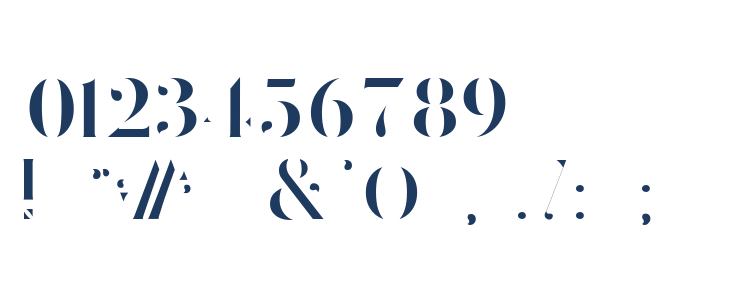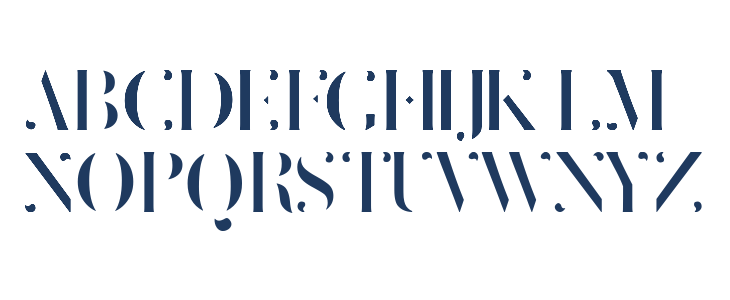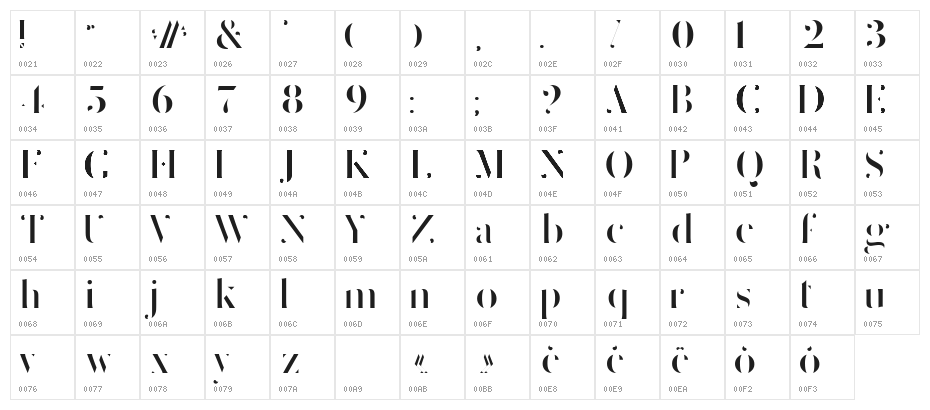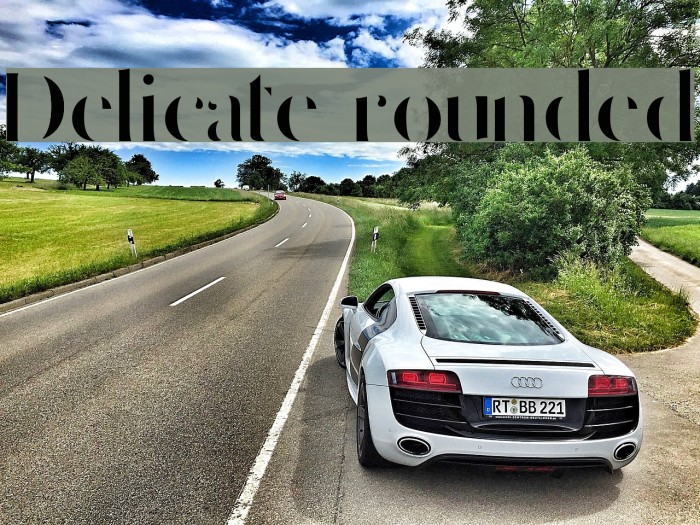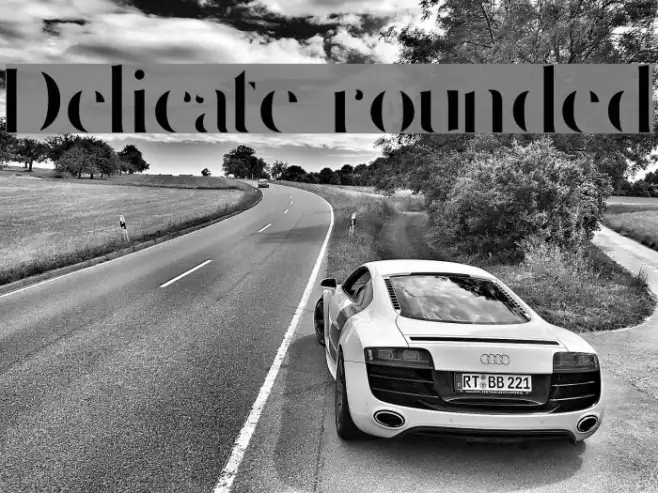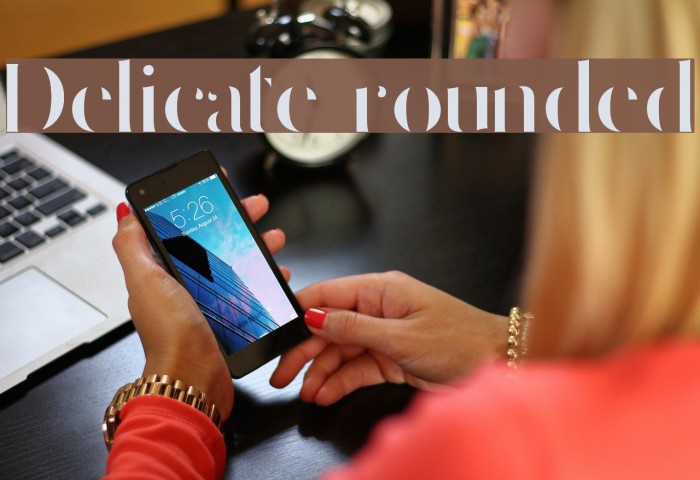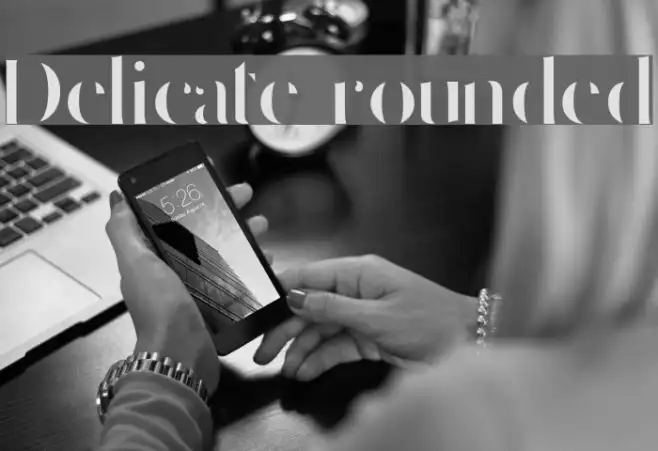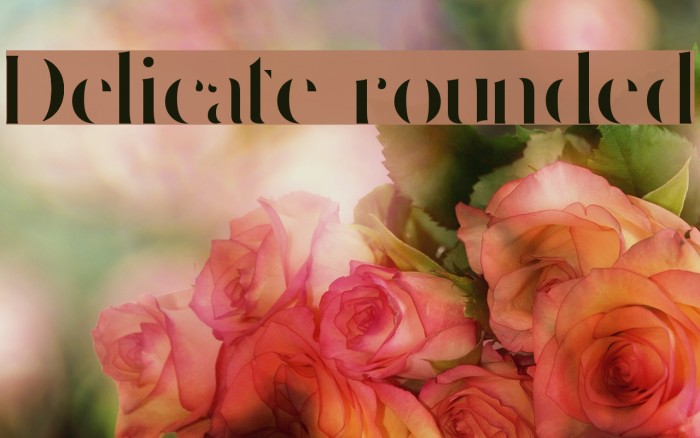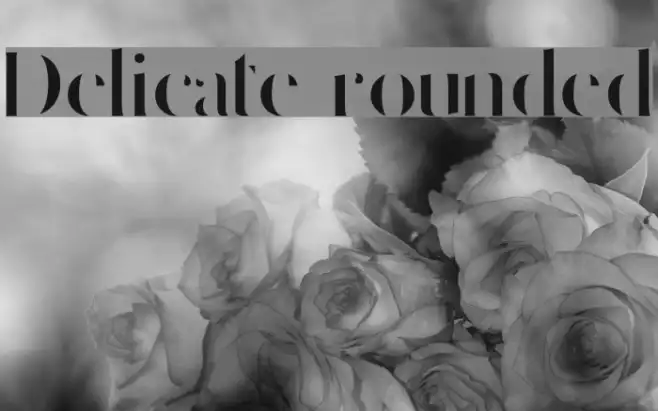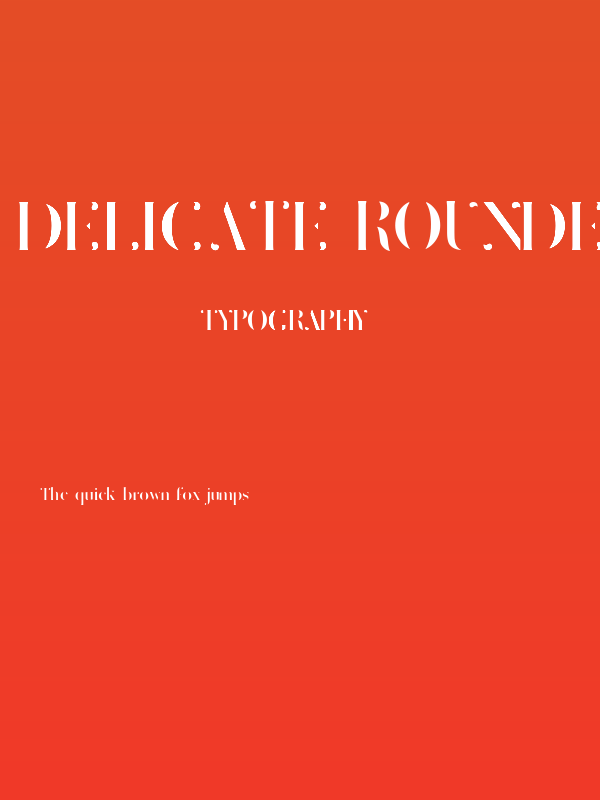
Delicate rounded Font
Delicate rounded Description
This font features a unique blend of modern and decorative styles, characterized by its bold, rounded forms and distinct cut-out shapes within each character. The uppercase letters exhibit a strong presence with their thick strokes and geometric precision, while the lowercase letters maintain a consistent style, offering a harmonious balance. The numerals and special characters follow the same design principles, ensuring a cohesive look across all glyphs. The font's high contrast between thick and thin strokes adds a dynamic visual appeal, making it suitable for eye-catching designs.
| Proposed Projects | Ideal for branding, poster design, and headlines where a modern and striking appearance is desired. |